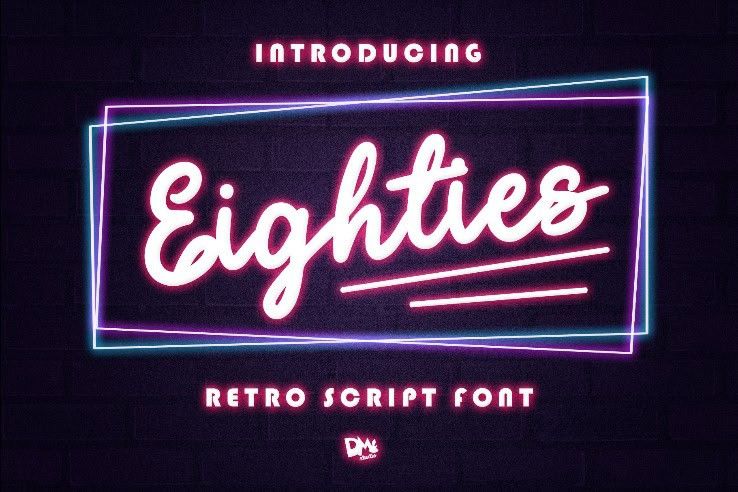
Eighties – Retro Script Font
Transport your designs back in time with the Eighties font. Download this retro typeface for free Personal Use and infuse a touch of nostalgia into your creative projects. Perfect for posters, logos, and more.
The Eighties Retro Script Font is a stylish and nostalgic typeface that takes inspiration from the bold and vibrant typography of the 1980s. With its retro script style and energetic letterforms, this font adds a touch of vintage flair and nostalgia to your designs, making it perfect for posters, album covers, branding, and other retro-themed projects.
1. Retro and Nostalgic Style: The Eighties Font captures the essence of the 1980s with its bold and energetic script design. It brings back the vibrant and dynamic typography of the era, creating a nostalgic and stylish look for your designs.
2. Vintage Script Design: The font’s script style evokes the classic handwriting of the 80s, featuring bold strokes and exaggerated letterforms. It adds a sense of personality and authenticity to your typography, reminiscent of retro signage and neon lights.
3. Versatile Application: This font is versatile and well-suited for various design projects that aim to evoke a sense of nostalgia and retro aesthetics. Use it in posters, album covers, branding, social media graphics, and more to add a touch of vintage flair to your designs.
4. Uppercase and Lowercase Letters: The font includes both uppercase and lowercase letters, providing flexibility and creative freedom in your designs. Mix and match the cases to create visually appealing and balanced typography.
5. Punctuation and Symbols: In addition to the alphabet, the Eighties Font includes a comprehensive set of punctuation marks, numerals, and common symbols. This ensures consistency and ease of use when incorporating the font into your design projects.
Transport your designs back to the vibrant era of the 1980s with the Eighties Retro Script Font. Let its bold and energetic letterforms bring a touch of vintage flair and nostalgia to your posters, album covers, and branding. Embrace the retro vibes of this font and create designs that pay homage to the iconic typography of the past.